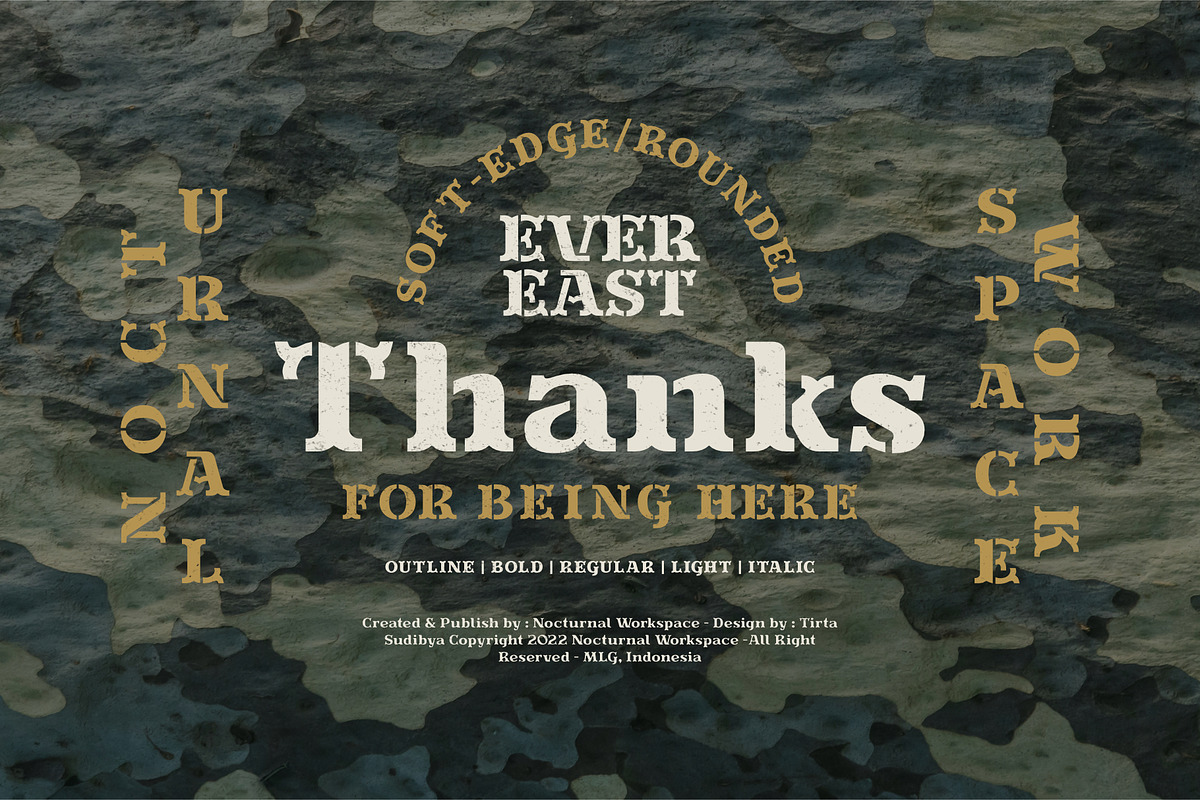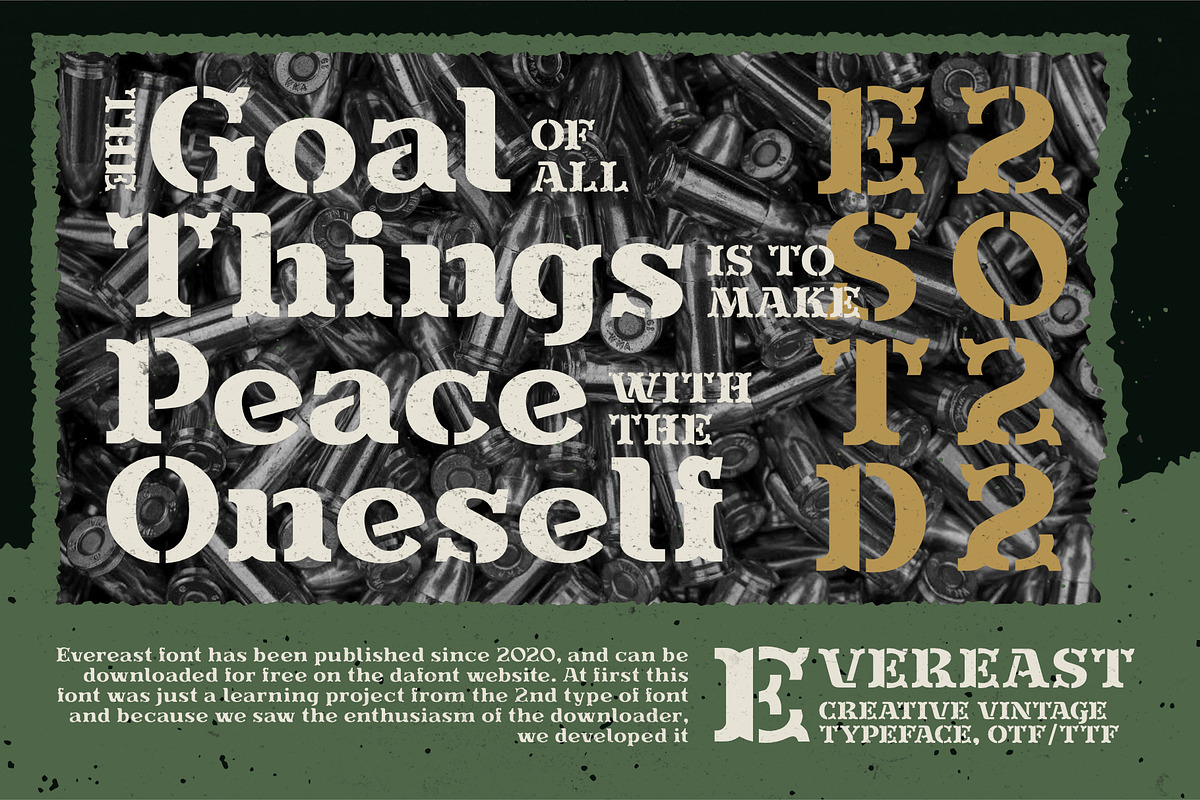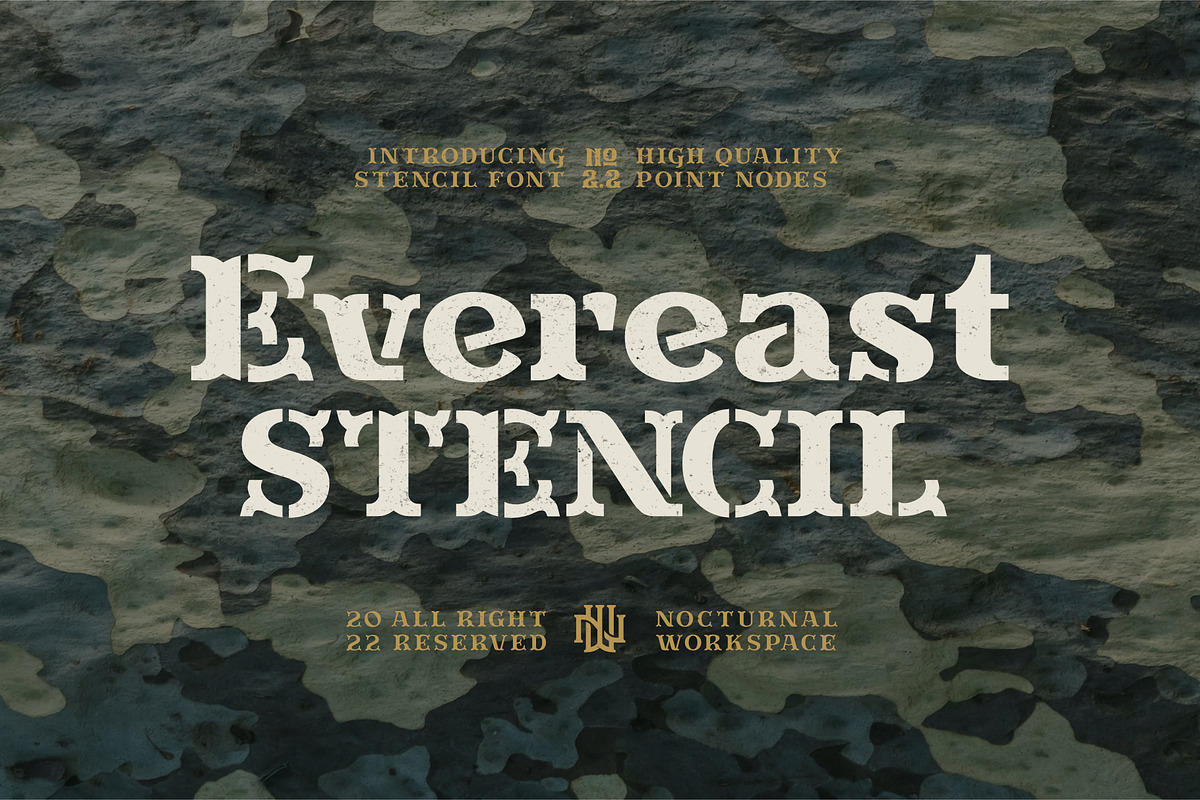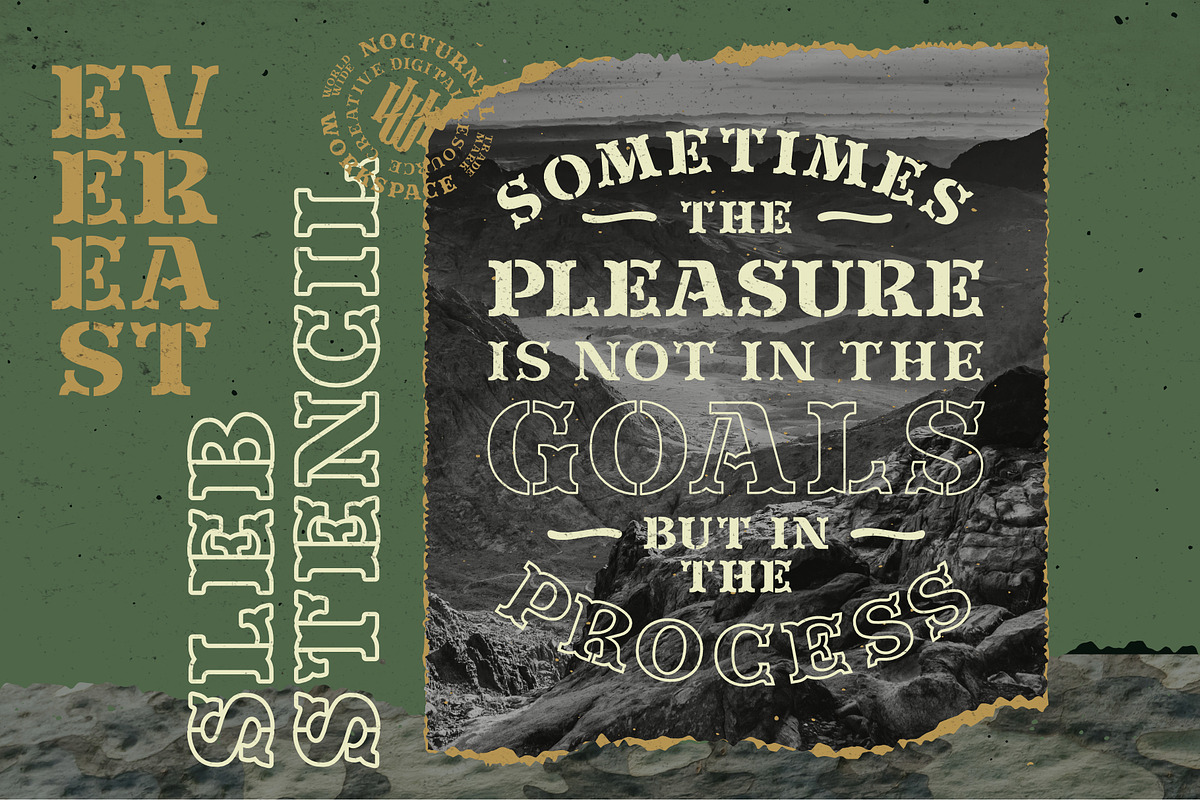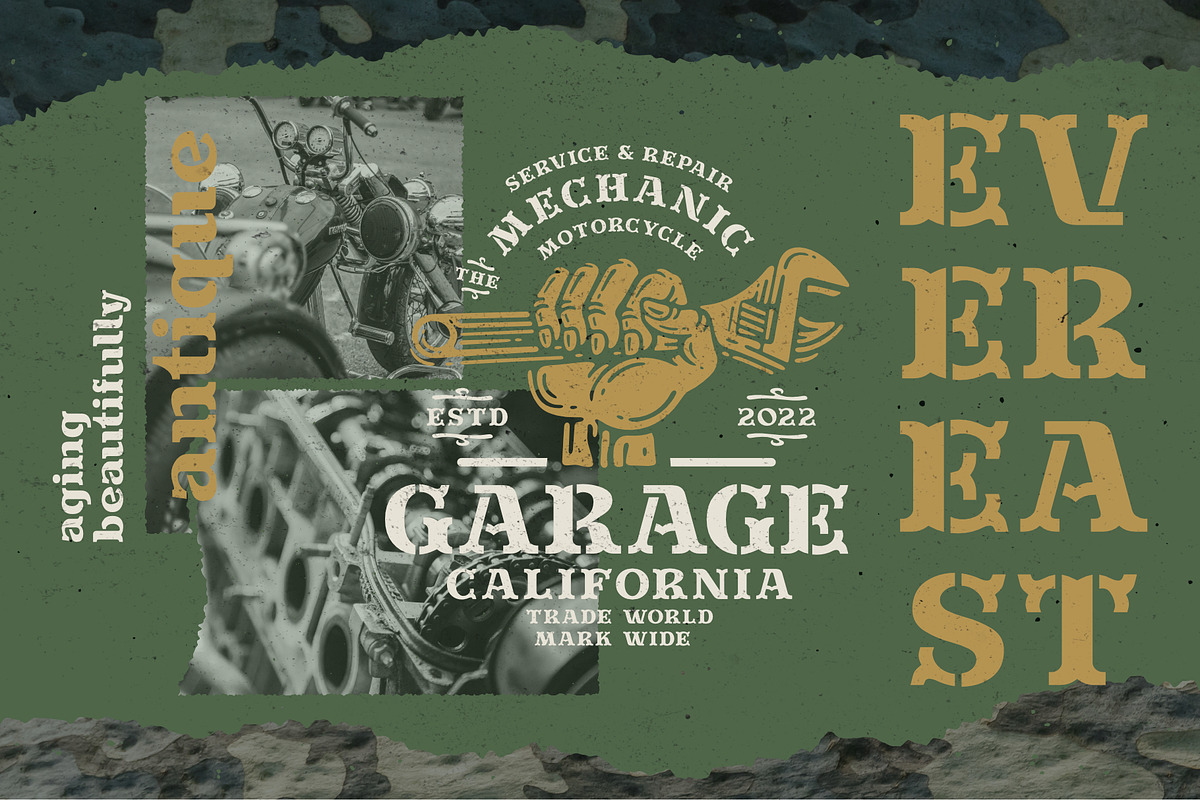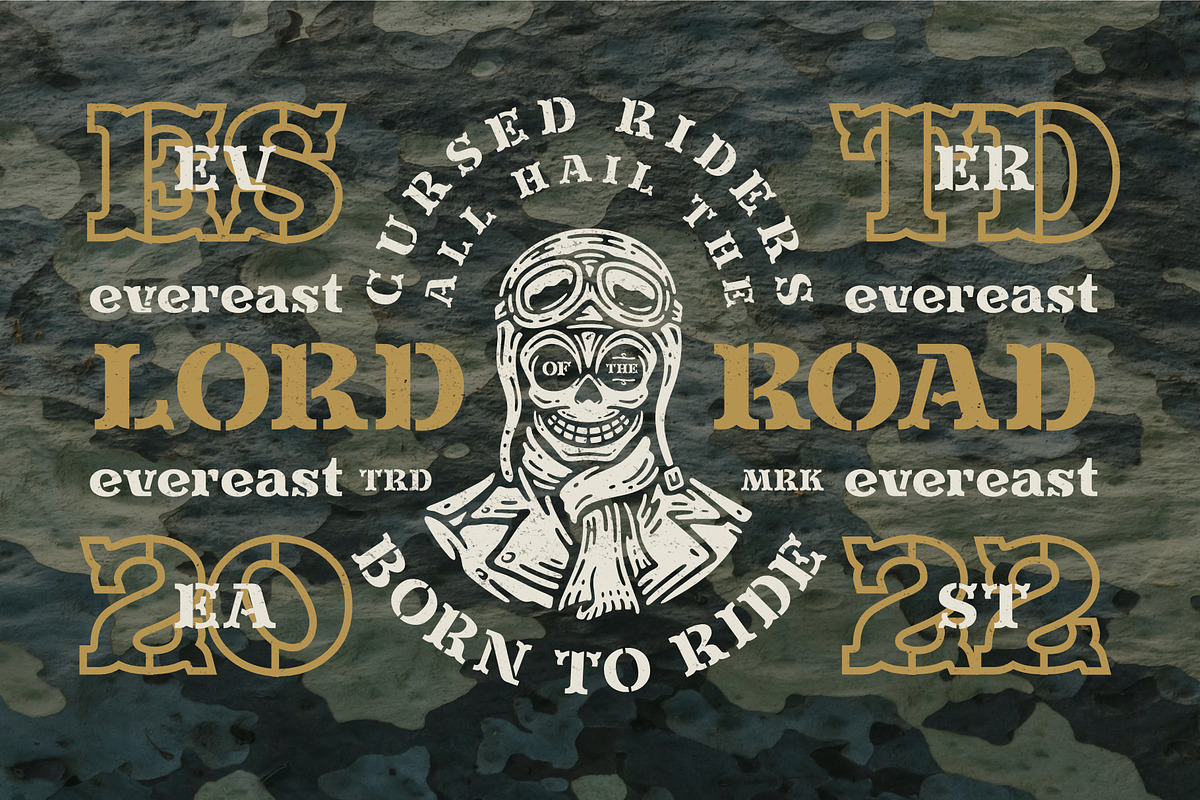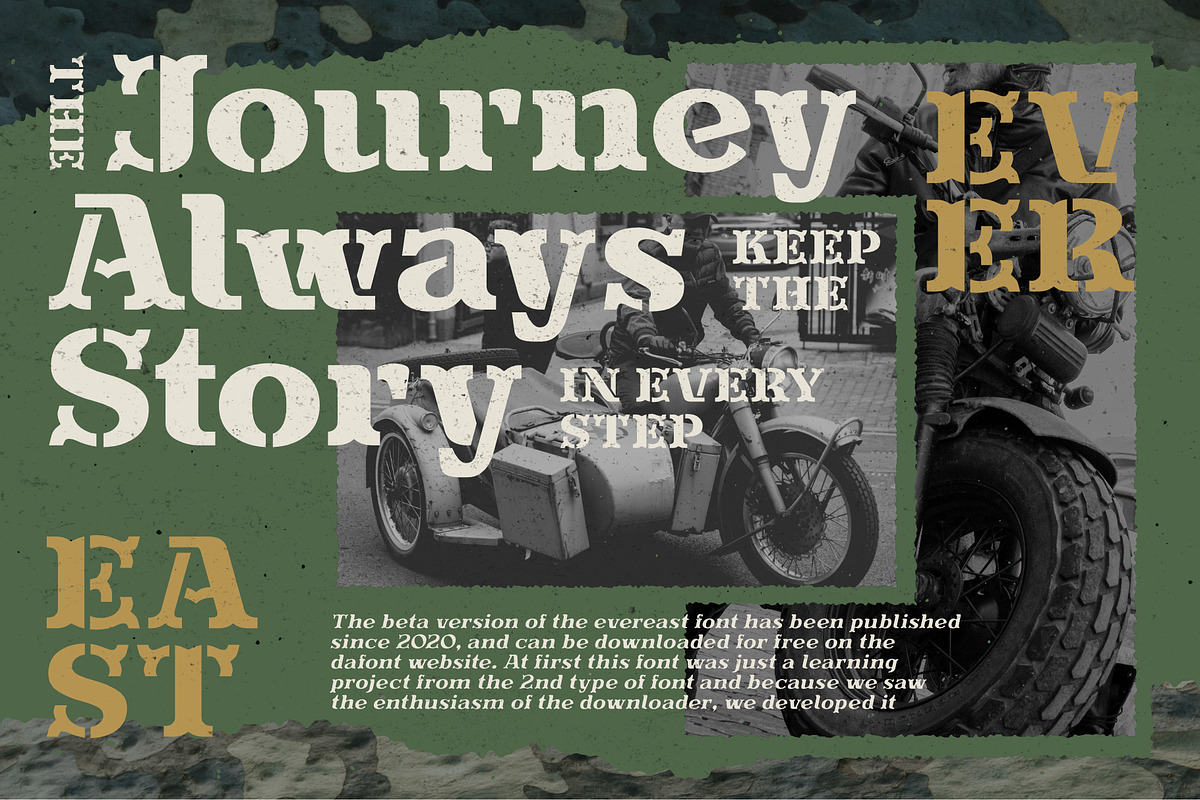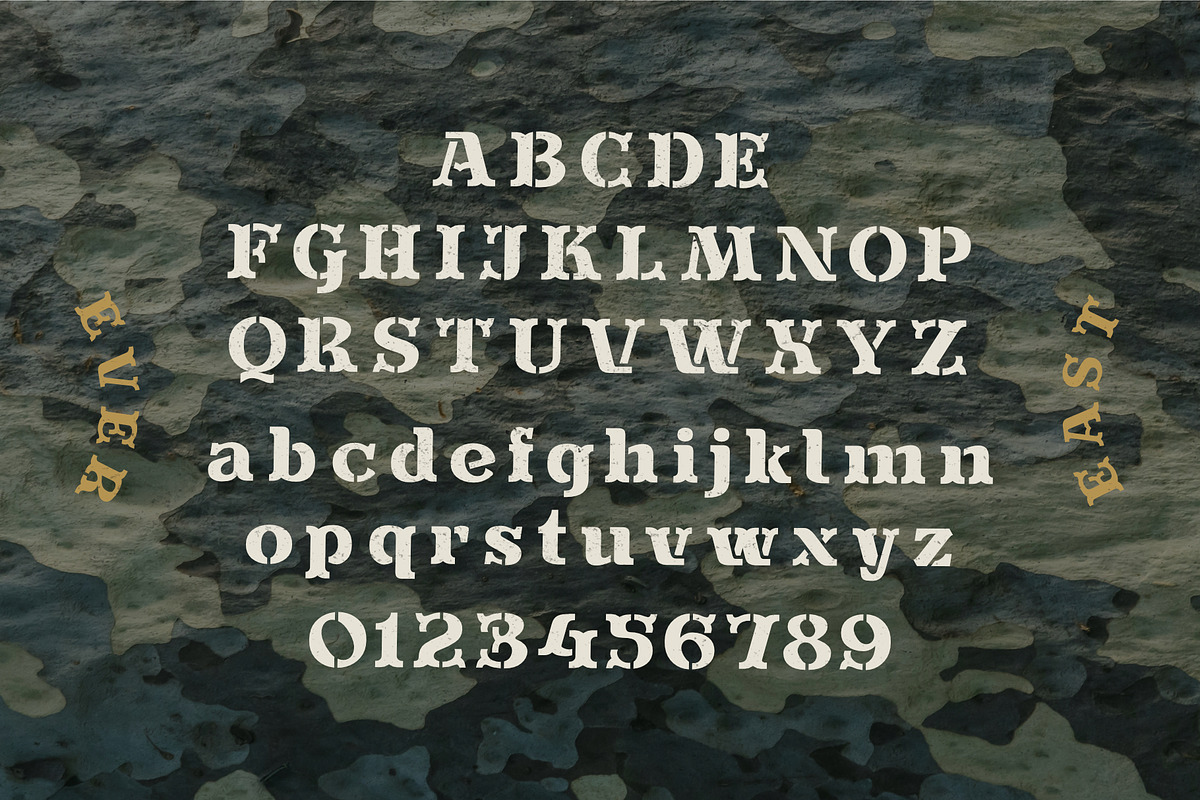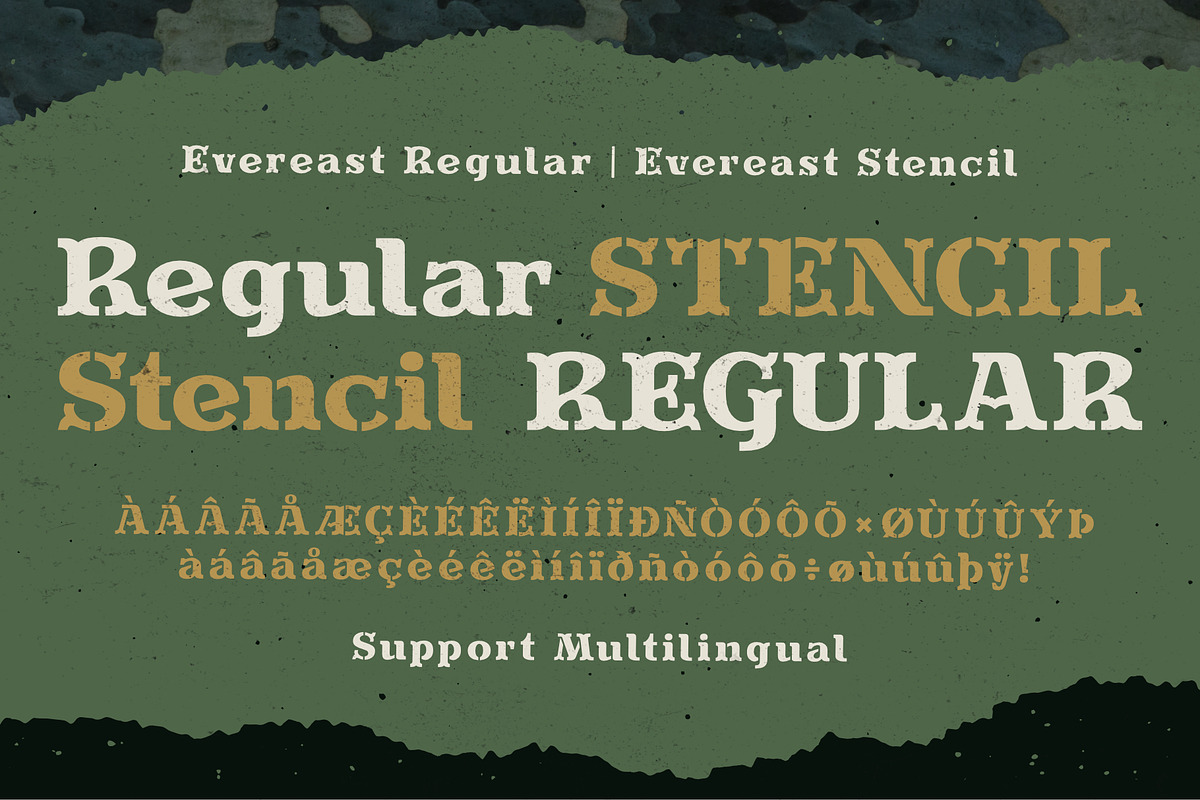
Evereast Slab Stencil
The beta version of the evereast font has been published since 2020, and can be downloaded for free on the dafont website. At first this font was just a learning project from the 2nd type of font and because we saw the enthusiasm of the downloader, we developed it
- 2 fonts style regular & stencil
- Includes a range of multilingual characters.
Evereast is suitable typeface for various purposes like logotype, signage, label, poster, dropcap, titles, letterhead, book cover and etc.